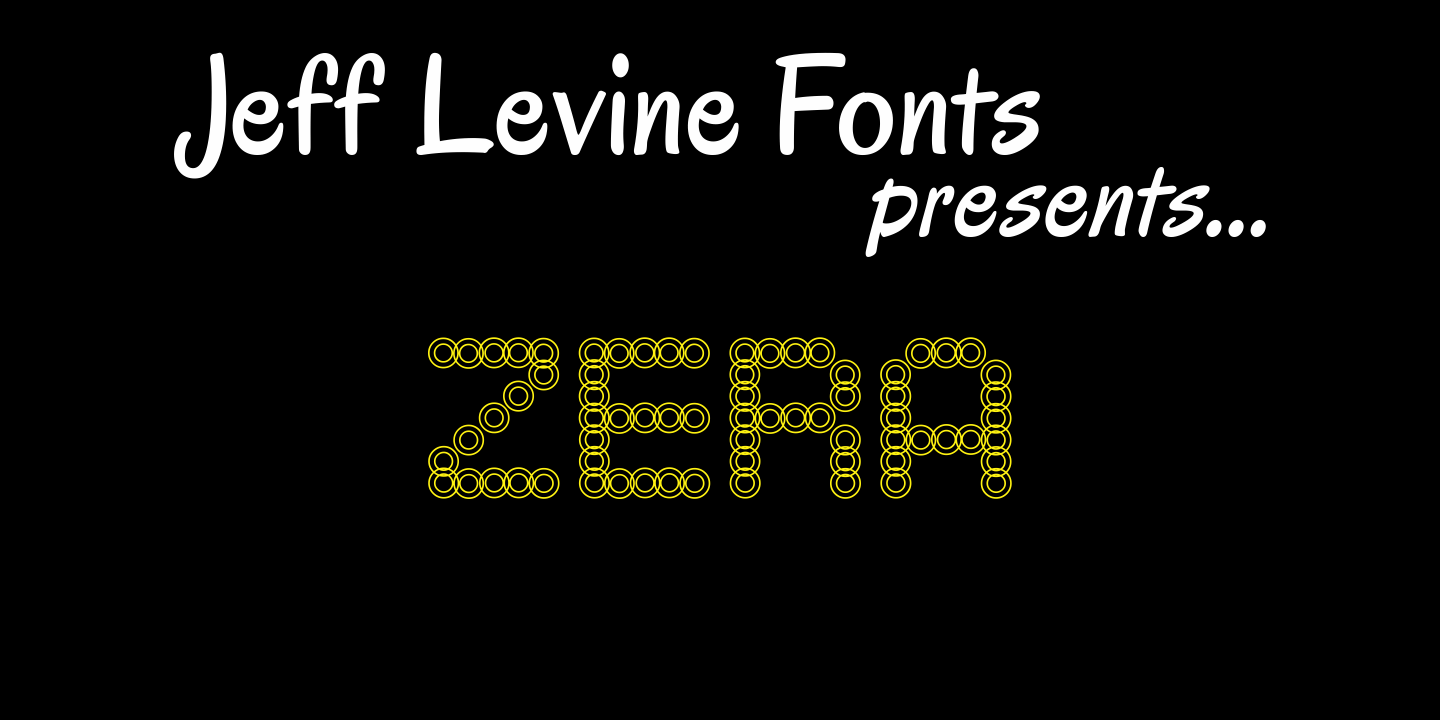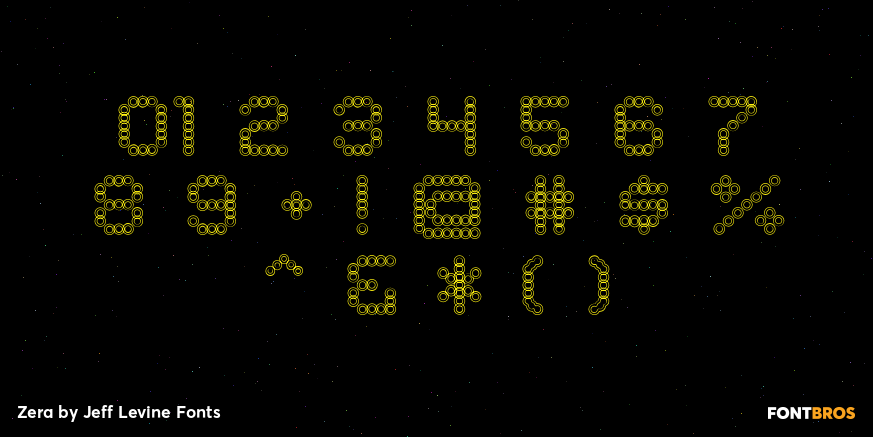
Zera
Zera JNL is one of those fonts that defy any simple description. While trying out effects on Transactive JNL, Jeff Levine came up with a set of letters comprised of intersecting rings that could illustrate chain, cellular structure, bubbles or probably anything your imagination can come up with to adapt the font to a particular project. Keep in mind this design works best in larger point sizes.